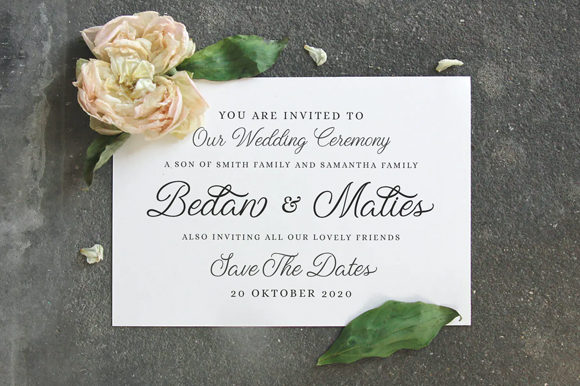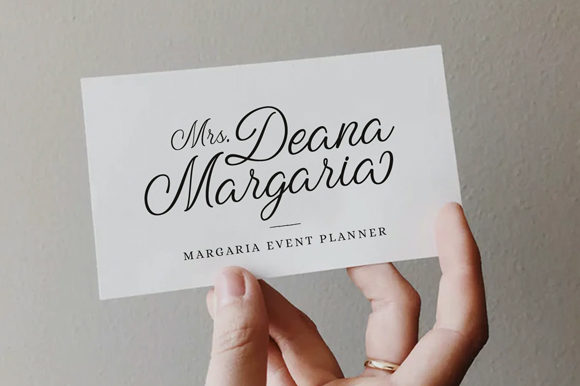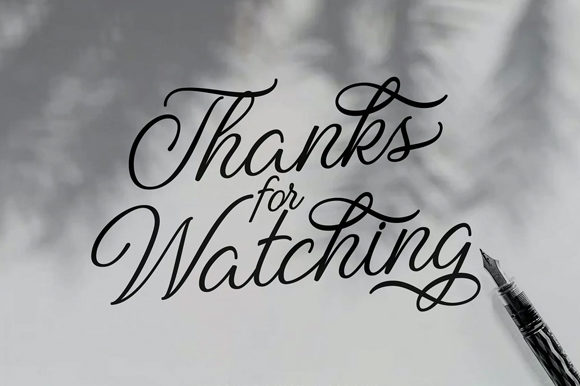
Introducing Ambrosial Font: Elevate Your Designs with Elegance
Are you a designer or crafter looking for a font that embodies elegance and sophistication? Look no further than Ambrosial Font. This delicate, elegant, and flowing handwritten font is designed to bring a touch of refinement to your creative projects. With its beautiful and well-balanced characters, Ambrosial Font is the perfect addition to your font collection.
The Characteristics of Ambrosial Font
Ambrosial Font is a unique and versatile font that boasts a range of characteristics that make it an ideal choice for designers and crafters. Some of its key features include:
- Delicate and Elegant: Ambrosial Font is a masterclass in subtlety, with a delicate and elegant design that exudes refinement and sophistication.
- Flowing Handwritten Style: The font’s flowing handwritten style gives it a personal and human touch, making it perfect for projects where you want to convey a sense of warmth and personality.
- Well-Balanced Characters: Each character in Ambrosial Font is carefully crafted to ensure that they are well-balanced and visually appealing, making it easy to read and understand.
Why Choose Ambrosial Font?
So why should you choose Ambrosial Font for your next project? Here are just a few reasons why this font stands out from the crowd:
- Versatility: Ambrosial Font is incredibly versatile, making it suitable for a wide range of designs and projects. Whether you’re working on a logo, branding materials, or a website, this font is sure to impress.
- Elegance: Ambrosial Font adds a touch of elegance to any project, making it perfect for designers and crafters who want to create sophisticated and refined designs.
- Easy to Read: The font’s well-balanced characters and flowing style make it easy to read, even at small sizes.
How to Use Ambrosial Font in Your Designs
Ambrosial Font is incredibly easy to use, and can be incorporated into a wide range of designs and projects. Here are a few ideas to get you started:
- Logos and Branding: Use Ambrosial Font to create a sophisticated and elegant logo that sets your brand apart from the competition.
- Websites and Blogs: Add a touch of elegance to your website or blog with Ambrosial Font, perfect for headings, titles, and other display text.
- Stationery and Invitations: Use Ambrosial Font to create beautiful and refined stationery and invitations that are sure to impress.
- Crafting and Scrapbooking: Add a personal touch to your crafting and scrapbooking projects with Ambrosial Font, perfect for journaling, titles, and other creative elements.
Tips and Tricks for Getting the Most Out of Ambrosial Font
Here are a few tips and tricks to help you get the most out of Ambrosial Font:
- Experiment with Different Sizes: Ambrosial Font looks great at a range of sizes, from small and delicate to large and bold. Experiment with different sizes to find the one that works best for your project.
- Pair with Other Fonts: Ambrosial Font pairs beautifully with other fonts, so don’t be afraid to experiment with different combinations to find the one that works best for your project.
- Use for Display Text: Ambrosial Font is perfect for display text, such as headings, titles, and other creative elements.
| Font Name | Ambrosial Font |
| Author | Visuelcolonie |
In conclusion, Ambrosial Font is a beautiful and elegant handwritten font that is perfect for designers and crafters looking to add a touch of sophistication to their projects. With its delicate and flowing style, well-balanced characters, and versatility, Ambrosial Font is sure to become a staple in your font collection. So why wait? Download Ambrosial Font today and start elevating your designs with elegance!